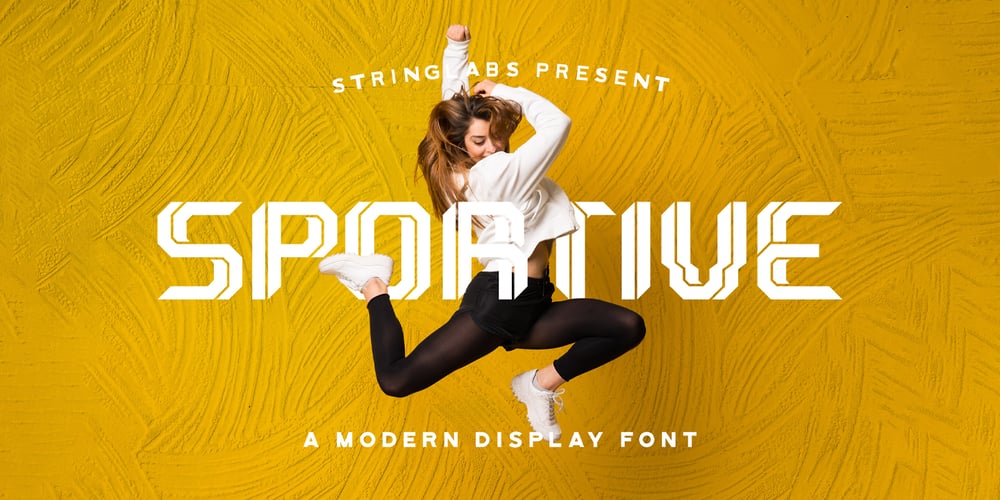
Sportive Font Family was designed by Virgiawan Listanto and published by Stringlabs Creative Studio. Sportive contains 2 styles and family package options. Sportive is a unique and modern display font. This playfully conceptual typeface font will look truly outstanding in a wide range of contexts.